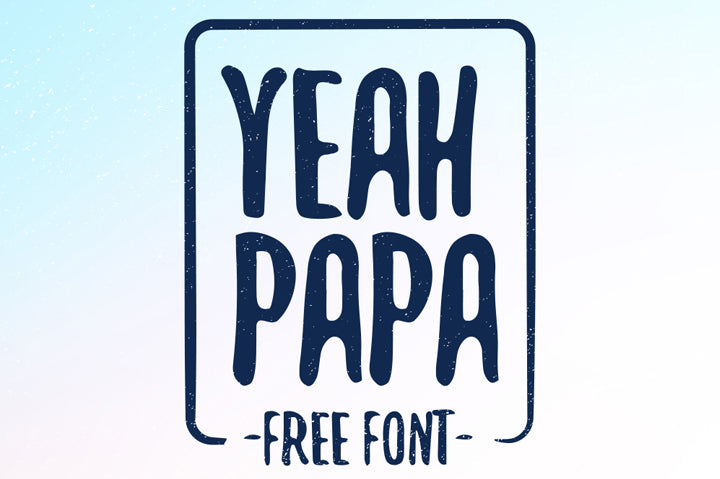
Free Font Yeah Papa Typeface
Introducing you to the absolutely beautiful free font yeah papa typeface. The Hungry JPEG has created this amazing and beautiful font. This is absolutely fancy font so you can easily make world-class designs.